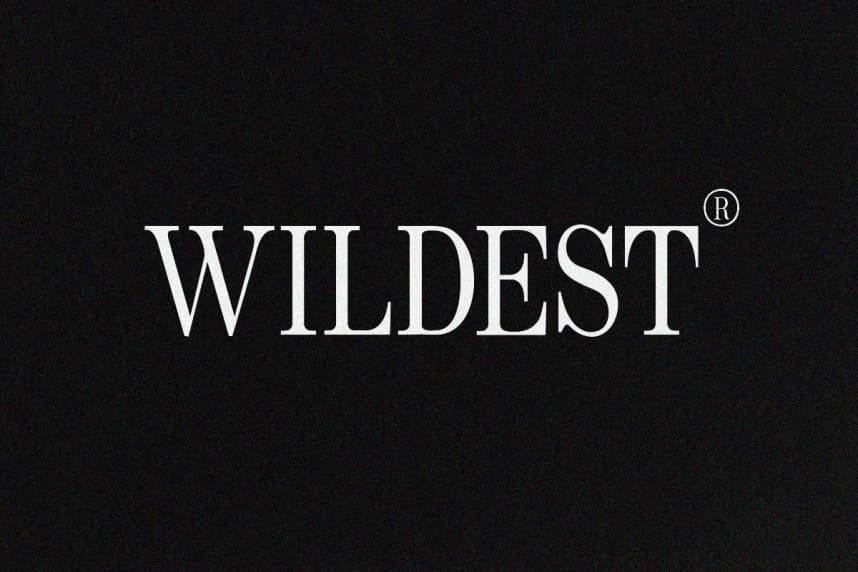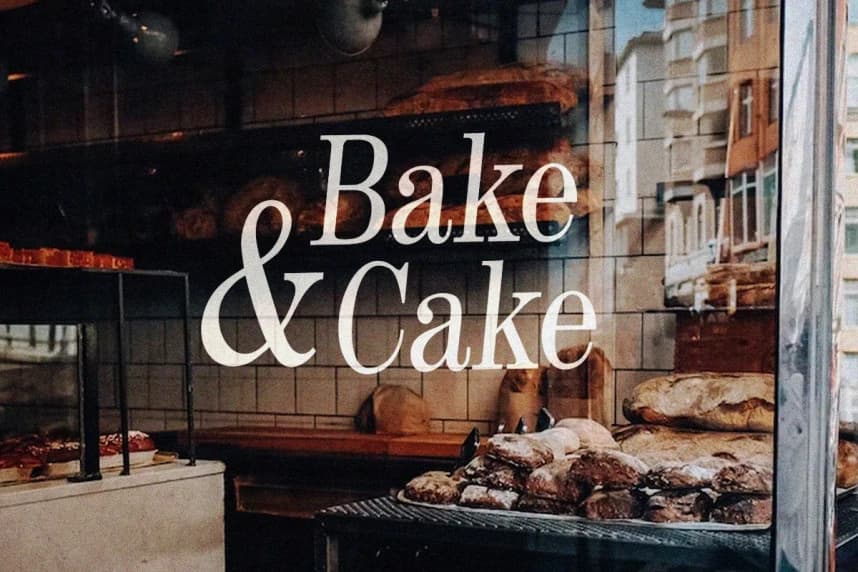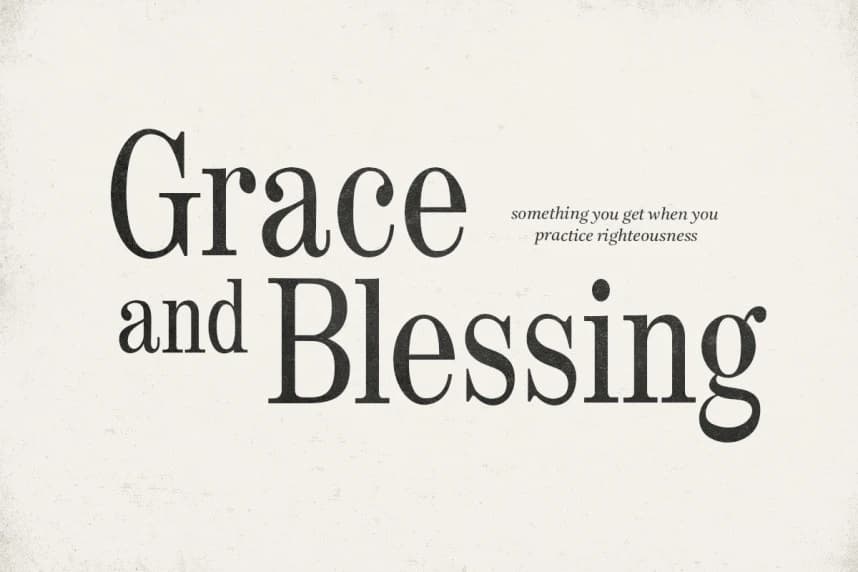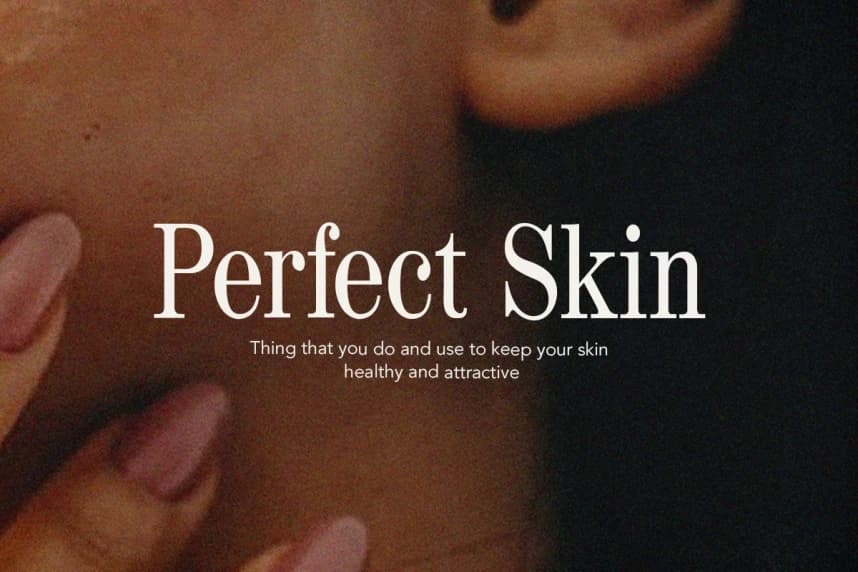
Wildest Serif Font
Wildest Serif Font is a basic serif font. It's casual charm and classy features make it suitable for a wide spectrum of applications. Add it confidently to your projects and you will love the results!